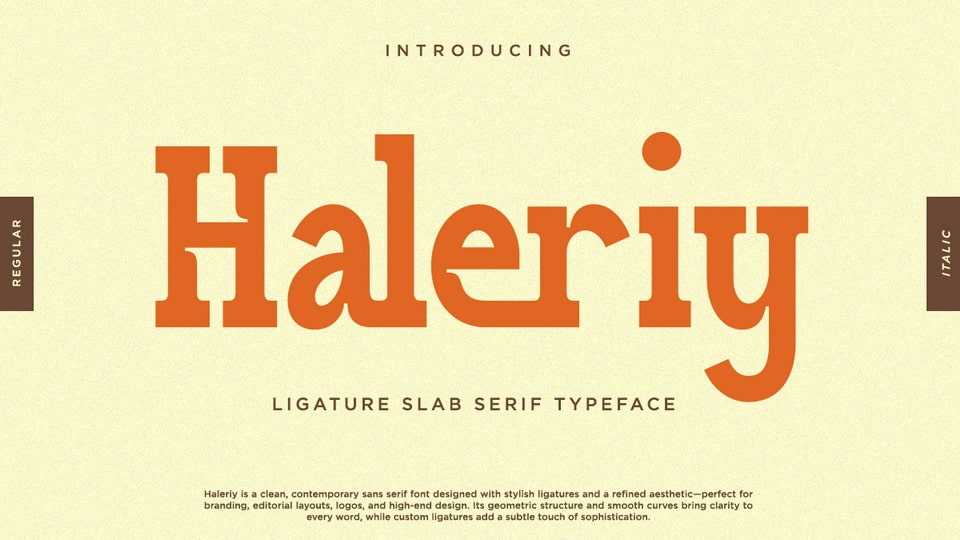
Download Haleriy font, a stylish slab serif typeface that blends vintage strength with inktrap style. Perfectly suited for headlines, branding, logos, packaging, and editorial layouts.